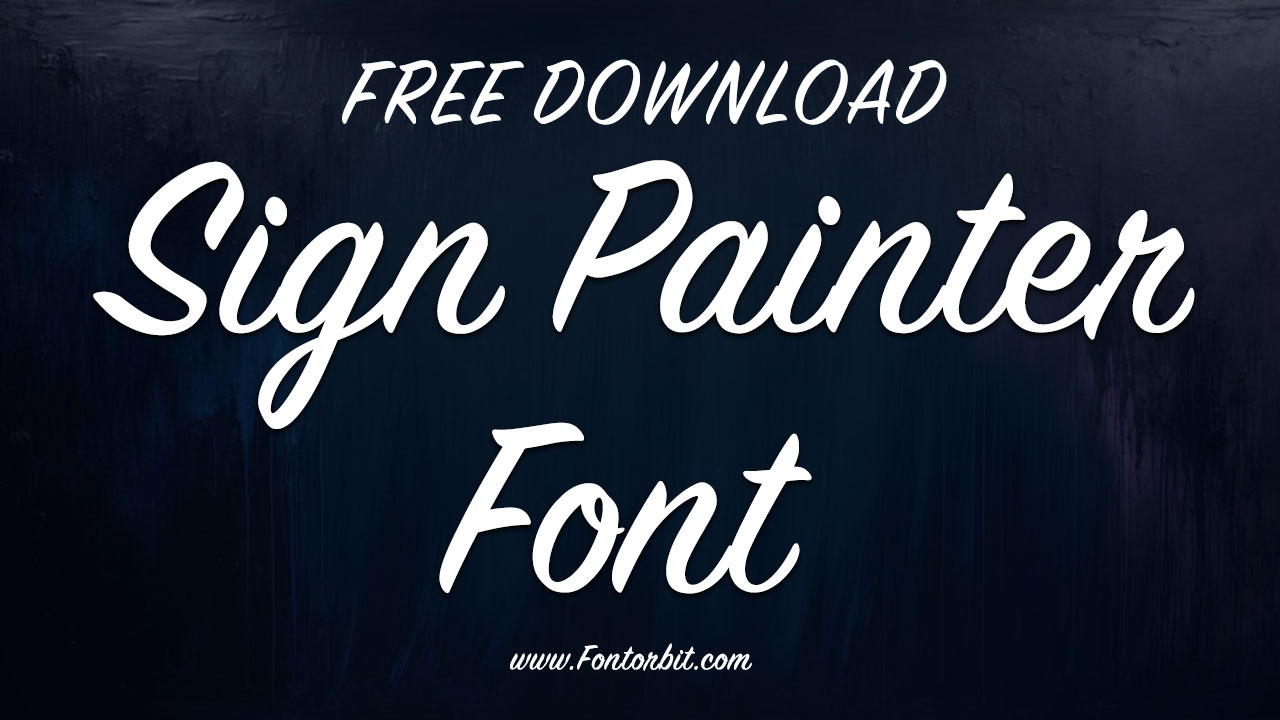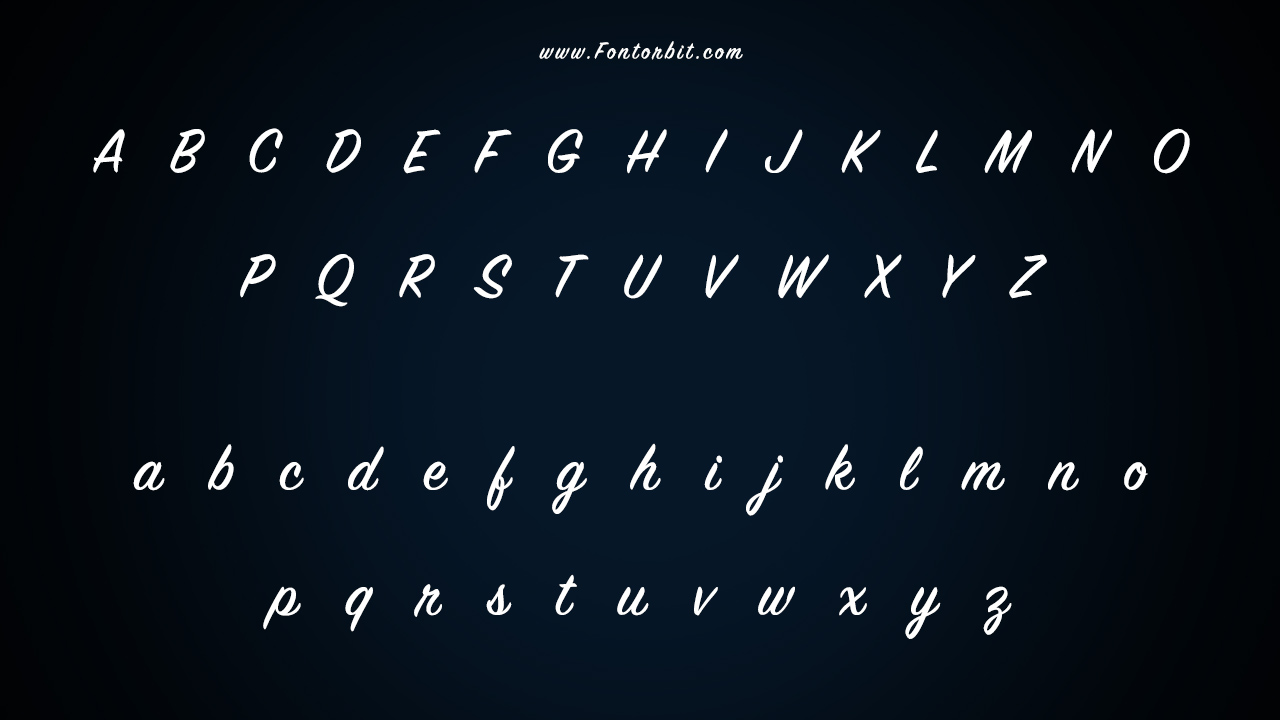
Sign Painter is a vintage-inspired, handcrafted brush script typeface created by House Industries. Released as part of a typeface family, Sign Painter draws its aesthetic from traditional hand-painted signage.
Known for its bold, expressive style, Sign Painter is perfect for various creative projects where you want to capture the look and feel of old-school sign painting.
The font supports uppercase and lowercase letters, punctuation, numerals, and special characters. With multilingual support, it’s suitable for a variety of international design applications.
Sign Painter Font is an excellent choice for adding a handcrafted, retro touch to various design projects. Its vintage charm works well for designs that require a bold and nostalgic aesthetic. Sign Painter adds personality and flair to your creations from branding to advertisements.
- logotypes
- signs
- posters
- product designs
- digital ads
- branding
Sign Painter Font offers a nostalgic blend of boldness and hand-drawn elegance, making it ideal for various design projects. Its wide range of styles ensures versatility, from logos to signage. Pair Sign Painter with clean, modern sans-serif fonts or contrasting decorative styles to create a balanced and captivating design.
1.What Are The Popular Uses Of The Sign Painter Font?
Sign Painter is popular for logos, signage, posters, advertisements, product packaging, and social media graphics due to its bold, vintage style.
4.What Is The Font Size Range For The Sign Painter Font?
Sign Painter works well in various sizes, especially in large formats for signage and logos where its bold strokes stand out.